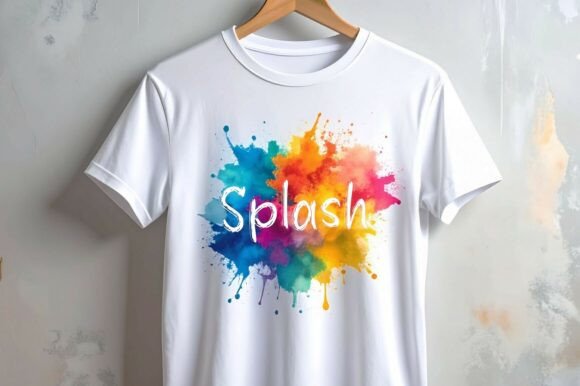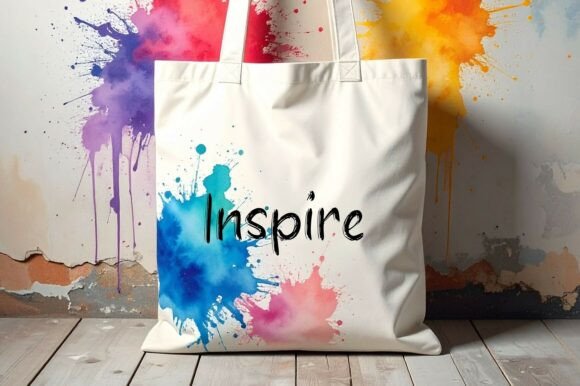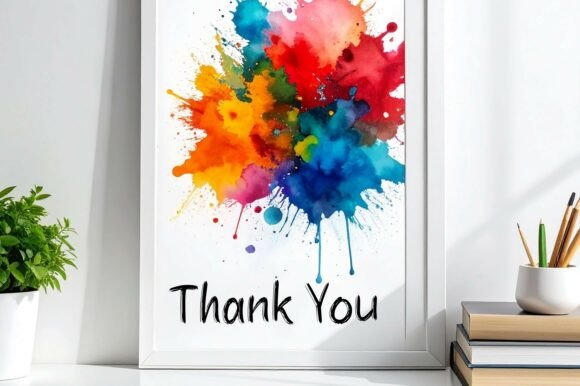
Introducing the “Best Friend” Font: A Radiant Script Font for Warm and Genuine Communication
In the world of typography, a font can evoke emotions and convey personality. The “Best Friend” font is a shining example of a typeface that embodies warmth, charm, and genuineness. This beautiful script font is designed to mirror the feeling of a heartfelt, handwritten letter from a dear friend. With its fluid, organic brush strokes and approachable style, “Best Friend” is the perfect choice for designers and crafters looking to add a personal touch to their projects.
The Characteristics of “Best Friend”
The “Best Friend” font boasts a unique blend of modern and timeless script appeal. Its carefully crafted characters meld together seamlessly, creating a smooth and welcoming reading experience. The font features classic punctuation glyphs, ensuring effortless reading and a user-friendly encounter across various applications. Whether you’re working on personalized invitations, greeting cards, brand identities, packaging designs, or digital landscapes, “Best Friend” promises to deliver a warm and engaging message.
One of the standout features of the “Best Friend” font is its versatility. This typeface can be used across a range of creative tools and software, making it an excellent addition to any designer’s or crafter’s toolkit. From digital projects to print materials, “Best Friend” adapts effortlessly, allowing you to emboss your unique sentiment and artistic flair across a spectrum of projects.
For designers, “Best Friend” offers a fresh and exciting way to add personality to client projects. Whether you’re working on branding, packaging, or marketing materials, this font is sure to make a lasting impression. Crafters, on the other hand, will love using “Best Friend” for handmade projects, such as card making, scrapbooking, and journaling. The font’s friendly and approachable style makes it perfect for creating personalized and meaningful items.
Key Features of “Best Friend”
- Radiant, charismatic script font with fluid, organic brush strokes
- Warm and genuine style, reminiscent of a heartfelt handwritten letter
- Carefully crafted characters for seamless merging and smooth reading
- Classic punctuation glyphs for effortless reading
- Versatile and adaptable across various creative tools and software
- Perfect for personalized invitations, greeting cards, brand identities, packaging designs, and digital landscapes
Tips for Using “Best Friend”
To get the most out of the “Best Friend” font, here are a few tips:
- Pair “Best Friend” with complementary fonts to create visual interest and hierarchy
- Experiment with different colors and textures to add depth and emotion to your projects
- Use “Best Friend” for headlines, titles, and quotes to add a personal touch
- Don’t be afraid to mix and match “Best Friend” with other fonts to create a unique look
The “Best Friend” font is a beautiful and versatile typeface that is sure to capture the hearts of designers and crafters alike. With its warm and genuine style, fluid brush strokes, and classic punctuation glyphs, this font is perfect for adding a personal touch to a wide range of projects. Whether you’re working on digital or print materials, “Best Friend” promises to deliver a radiant and charismatic message that will leave a lasting impression.